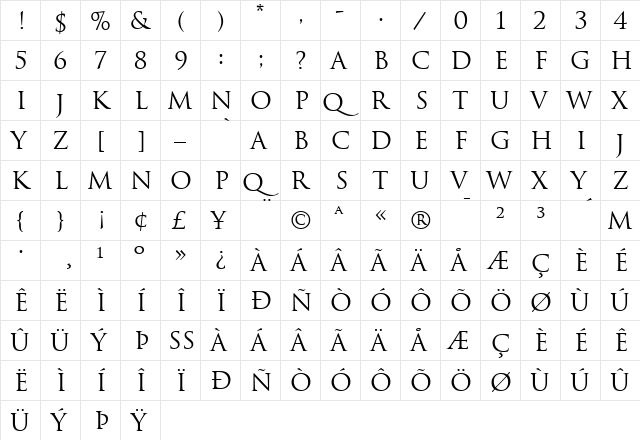
Trajan Regular Font Preview
Trajan Regular
Design Context for Trajan Typeface
Trajan takes a measured approach to typography — its balanced proportions and neutral character make it a reliable workhorse for both digital and print work.
Pro Tip: Use Trajan in both headline and body roles to test its range before committing to a single application.